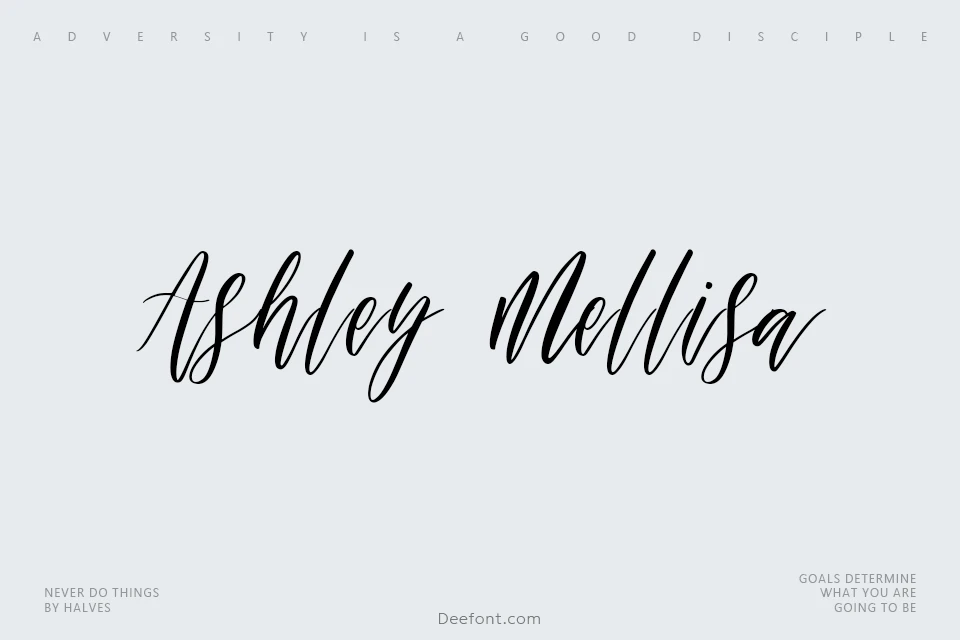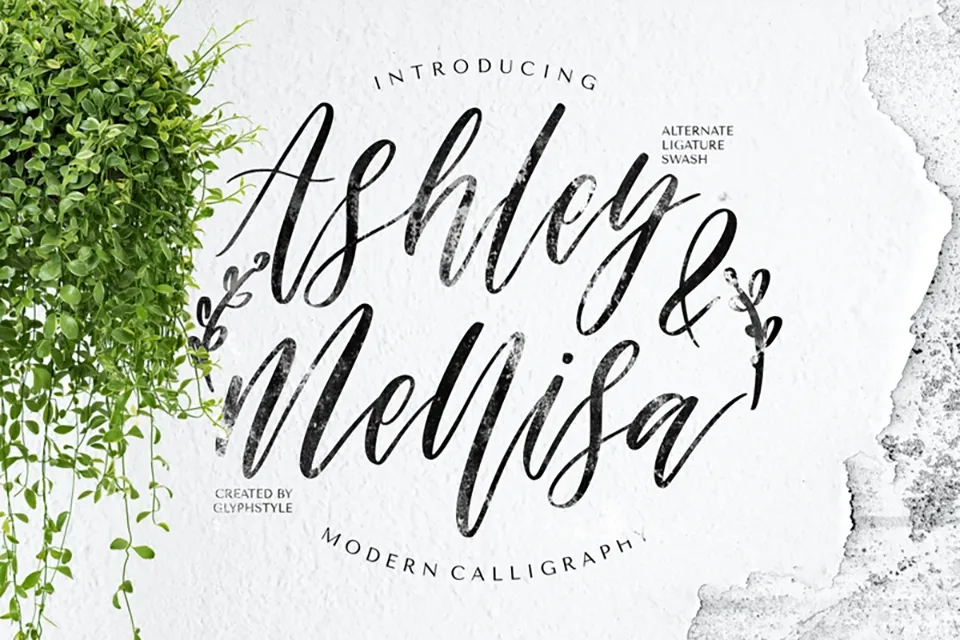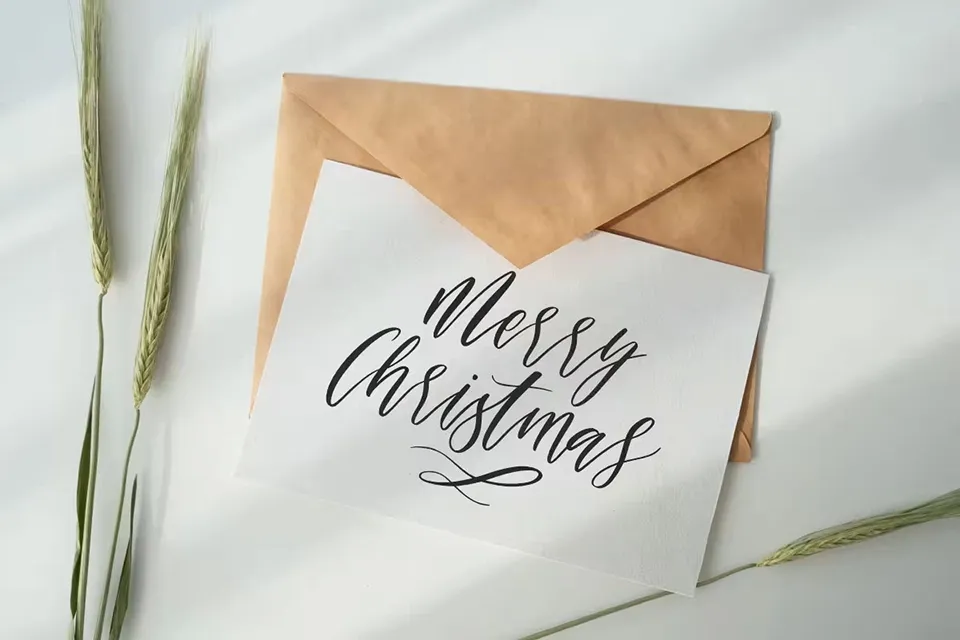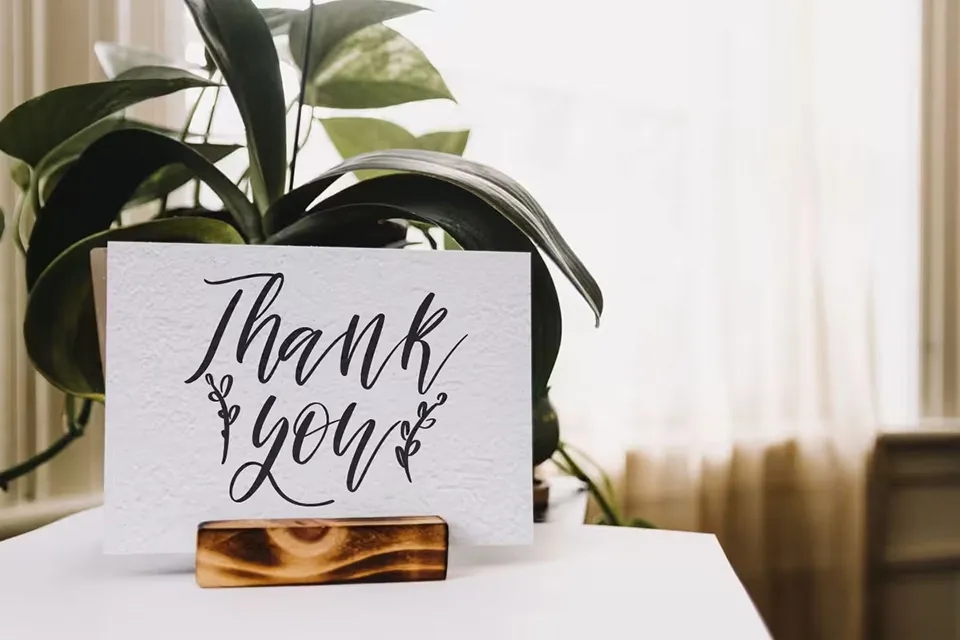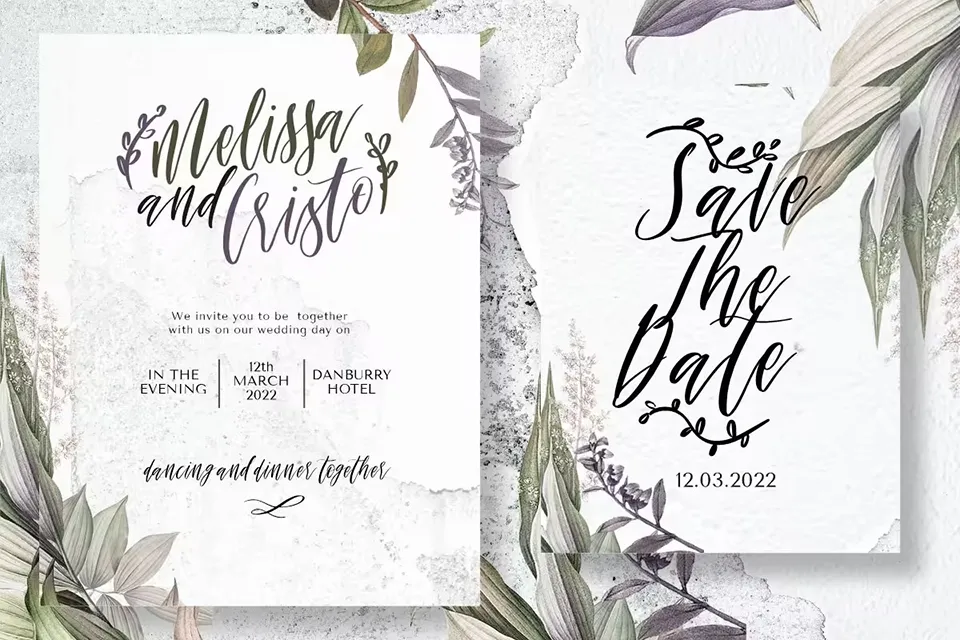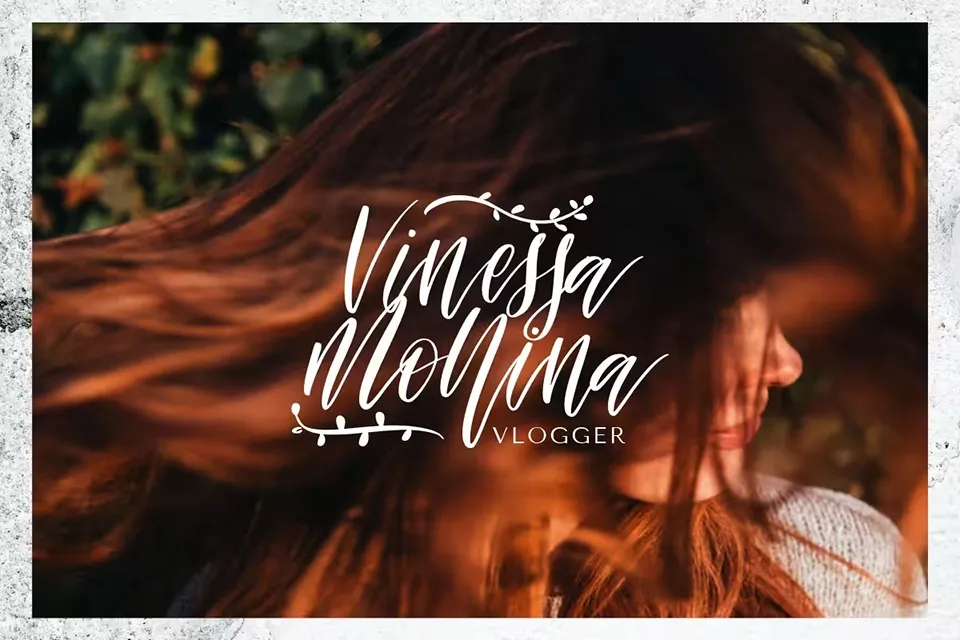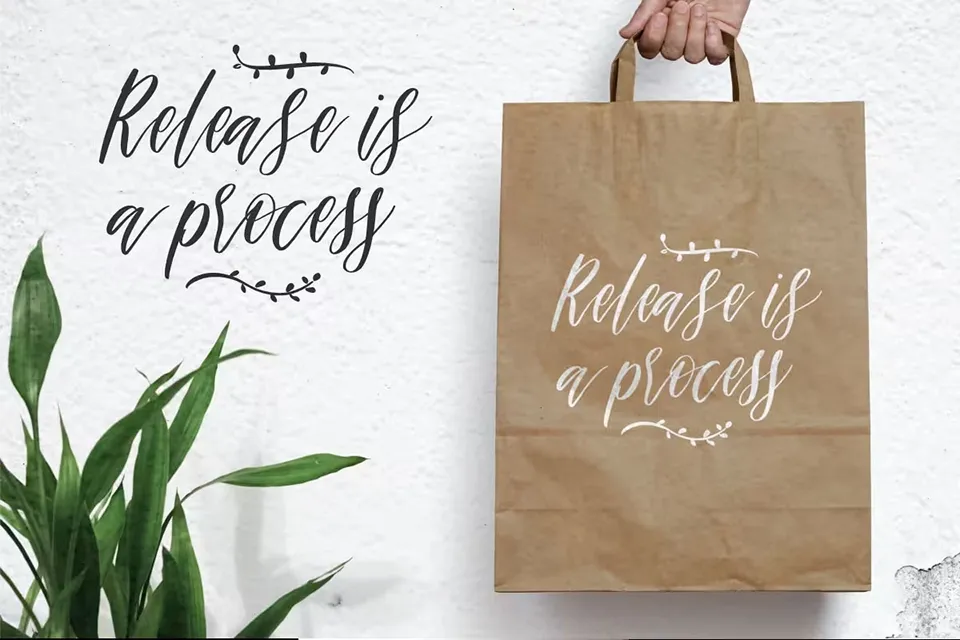
Ashley & Mellisa Font
Ashley & Mellisa Font font is a modern calligraphy script featuring elegant, flowing strokes and a contemporary yet classic feel. Designed for versatility, it is perfect for invitations, branding, and decorative typography, offering alternate ligatures and swashes for a personalized touch.